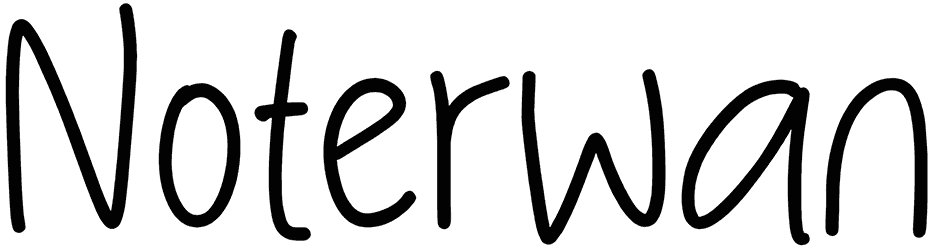
Noterwan Font
With a modern and minimal letterform, like what this handwritten font can provide, your design will have a friendly and casual vibe. The characters are natural and cute, and they can be matched with different layouts, like a daily Instagram story or a bakery sign. Benefit from this unique bullet journal font and catch a lot of observers.